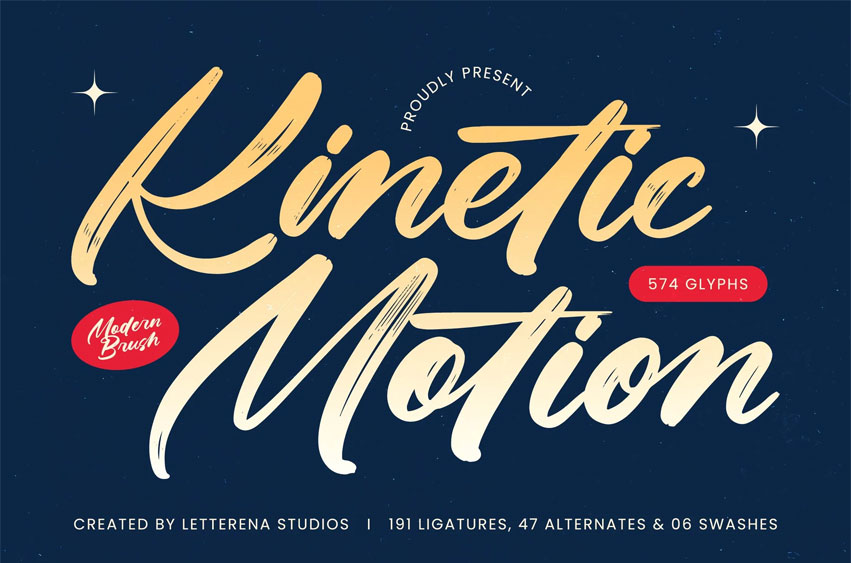
Kinetic Motion Font
Kinetic Motion Font is suitable to complement your digital and printed creative products. This font is perfect for posters, social media posts, branding, personal projects, etc.